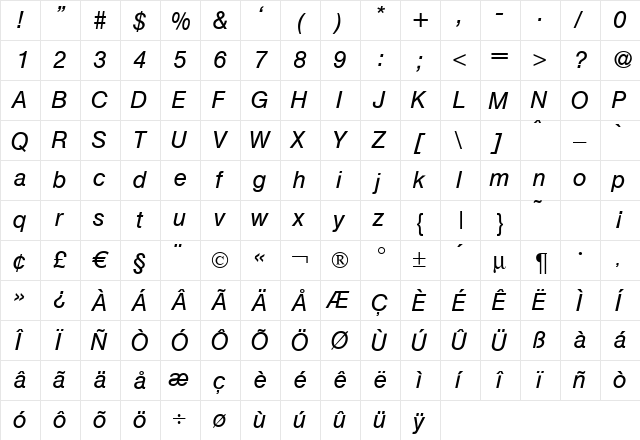
Hegel Italic
Design Context for Hegel Typeface
Hegel offers clean, dependable letterforms without strong stylistic allegiance, making it a practical choice for designers who need flexibility. The slanted form adds forward momentum and visual energy.
Pro Tip: Try Hegel for annotation and caption copy alongside an upright companion — the contrast in angle creates a dynamic but ordered typographic system.